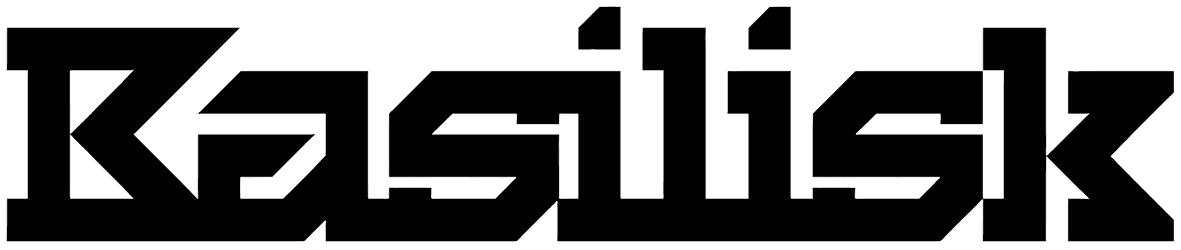
Basilisk Font
There is no need to waste time and energy finding a suitable font to design graphic content like posters, digital banners, brochures, logos, and applications when you have access to our magical library and enjoy a futuristic font such as Basilisk that comes with a sense of drama, eerie, or dynamic.
This techno font can boost the visibility of your work and strongly impress the audience. If you need another futuristic font the same as this one, visit our archive.